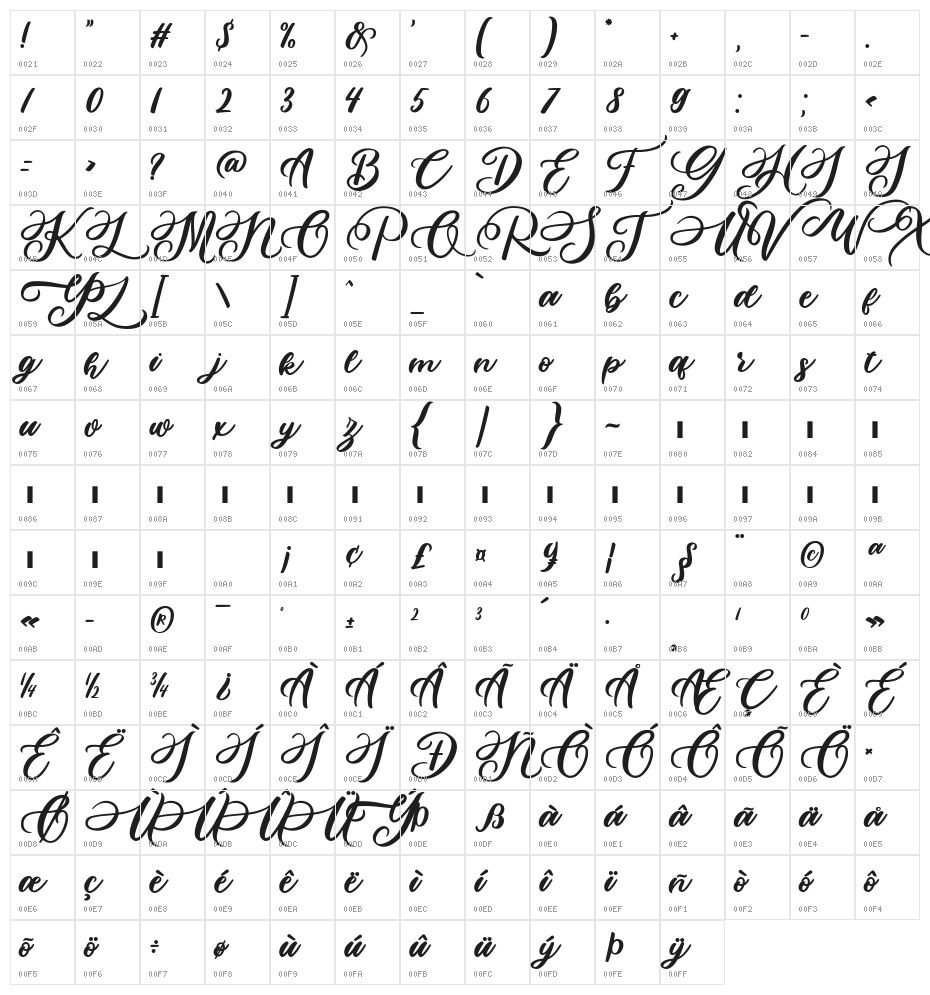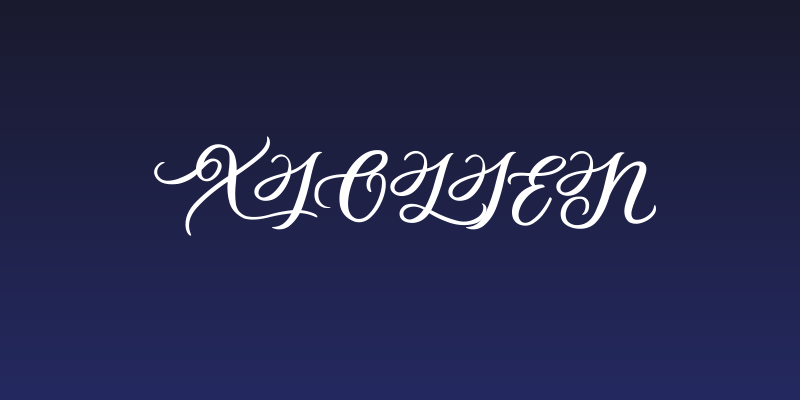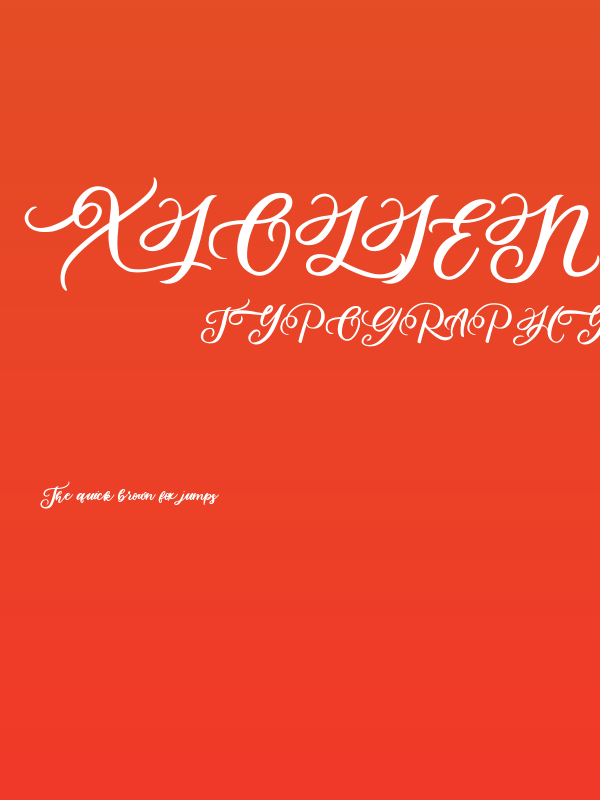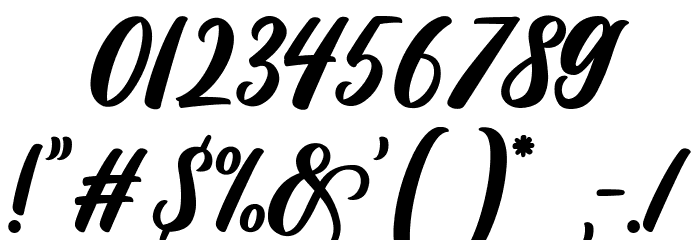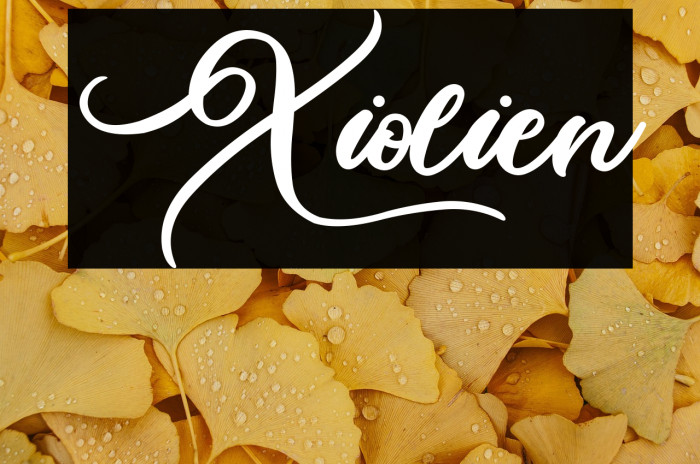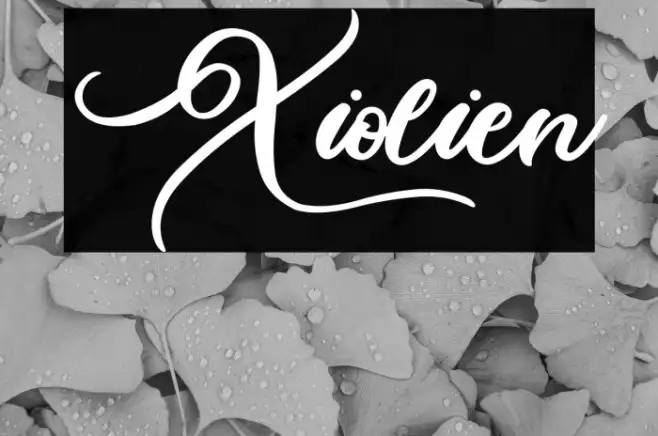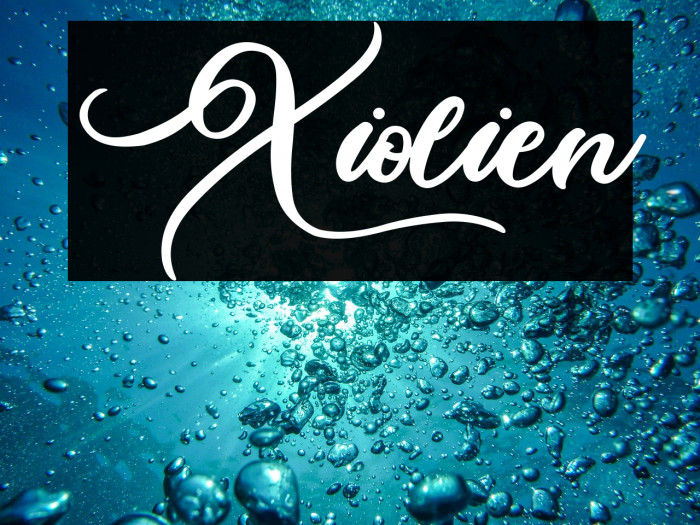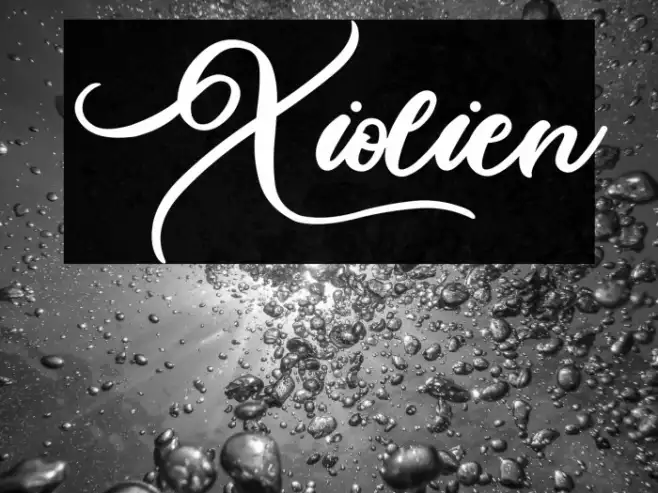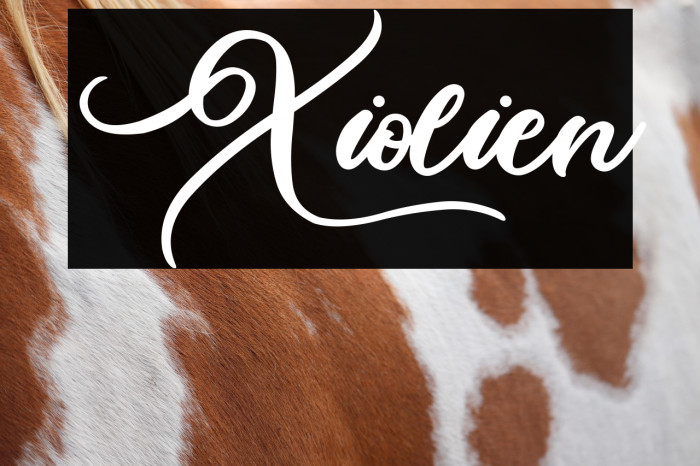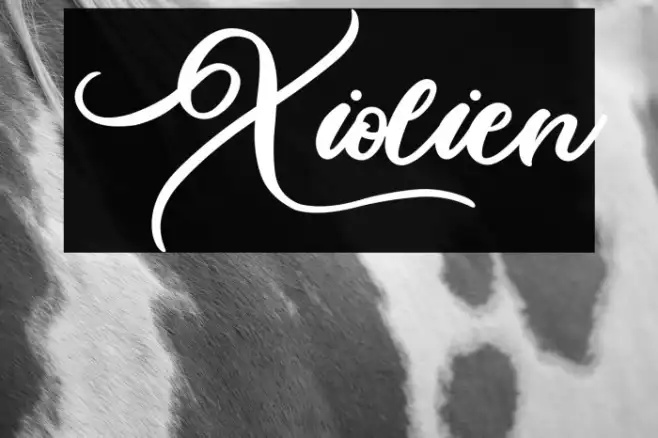
Xiolien Font
Xiolien Description
This font features an elegant and flowing script style, characterized by its smooth, cursive strokes and a sense of fluidity. The uppercase letters are ornate, with intricate loops and swirls that add a touch of sophistication. The lowercase letters maintain a consistent flow, with rounded forms and a slightly playful appearance. Numbers are bold and clear, matching the overall aesthetic. Special characters are designed with the same attention to detail, ensuring a cohesive look across all glyphs. This font is ideal for projects that require a touch of elegance and personality.
| Use Case | Headlines, Invitations, Branding |
| Proposed Projects | Ideal for wedding invitations, greeting cards, branding, and elegant packaging designs. |